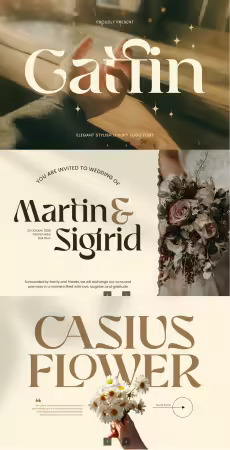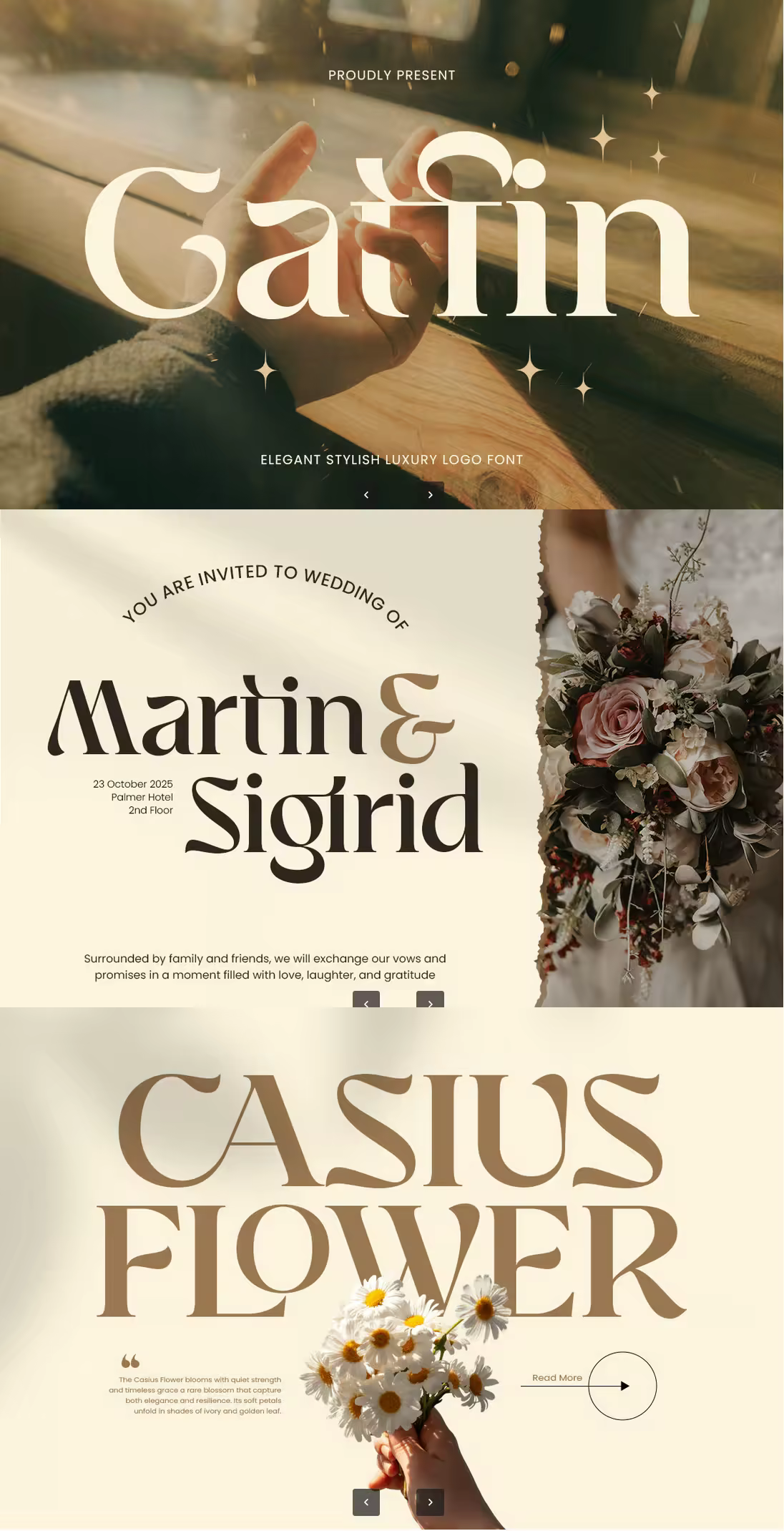
Gatfin is an elegant stylish luxury logo font created to bring a refined, premium feel to modern branding. With polished letterforms and a sophisticated rhythm, Gatfin helps your typography look exclusive, confident, and timeless—perfect for brands that want to communicate quality at first glance.
Designed for luxury logos, fashion labels, beauty brands, jewelry packaging, and editorial headlines, Gatfin delivers a high-end presence across both print and digital media. Use it for brand marks, packaging, social media campaigns, lookbooks, invitations, and premium marketing materials where elegance and clarity matter.
Whether you’re building a boutique identity or elevating an established premium brand, Gatfin provides a stylish typographic signature that feels modern, upscale, and unmistakably luxurious.
Gatfin – Elegant Stylish Luxury Logo Font Features
Elegant stylish letterforms with a premium luxury tone
Ideal for luxury logos, branding, fashion, and beauty design
Refined shapes for a classy and sophisticated visual identity
Strong readability for headlines, packaging, and brand marks
Includes uppercase, lowercase, numerals, and punctuation
Works beautifully in both print and digital applications
OpenType features for flexible, professional typography